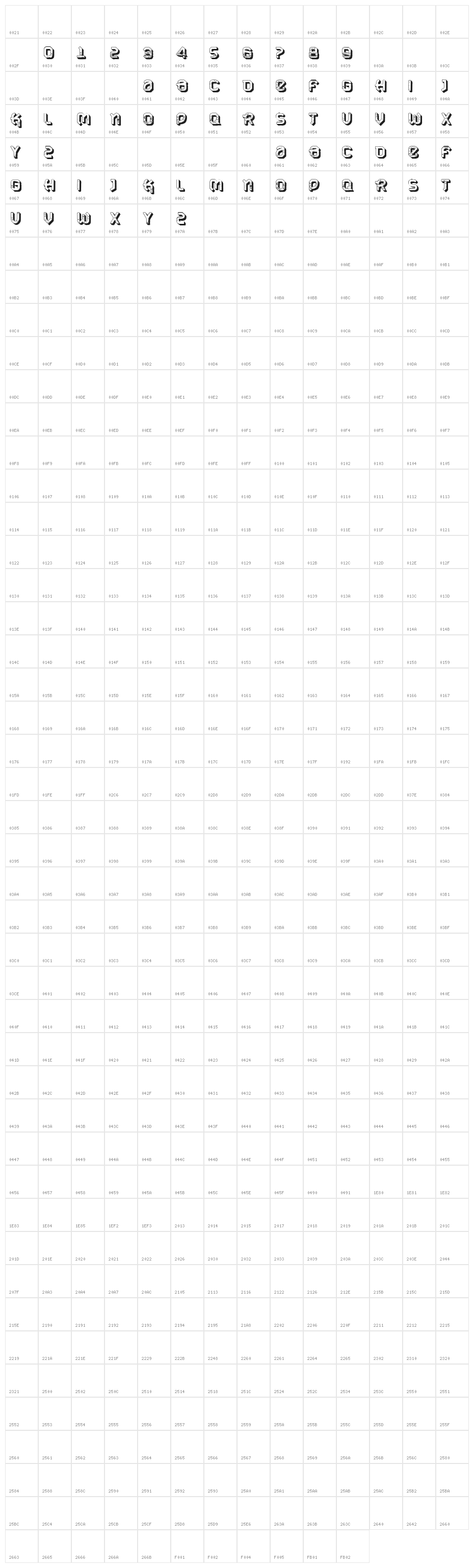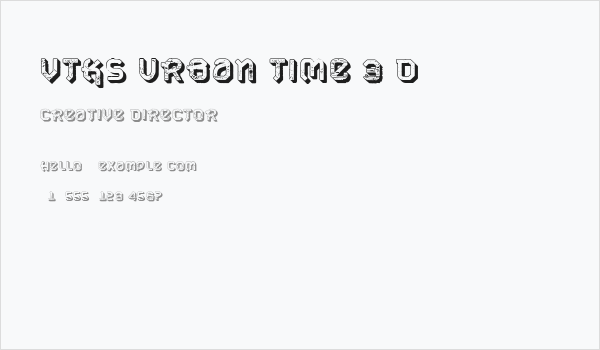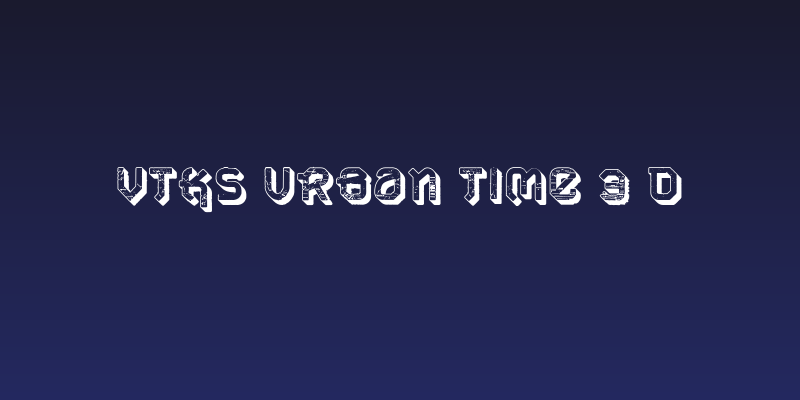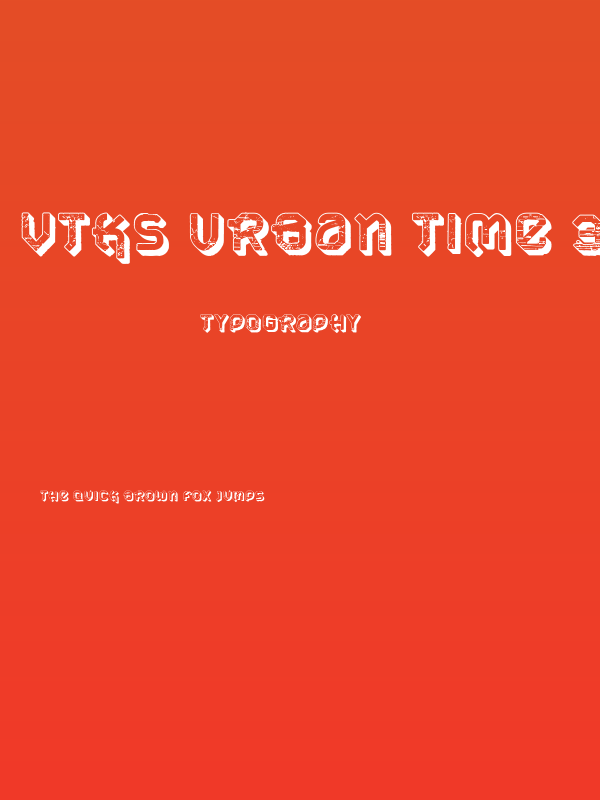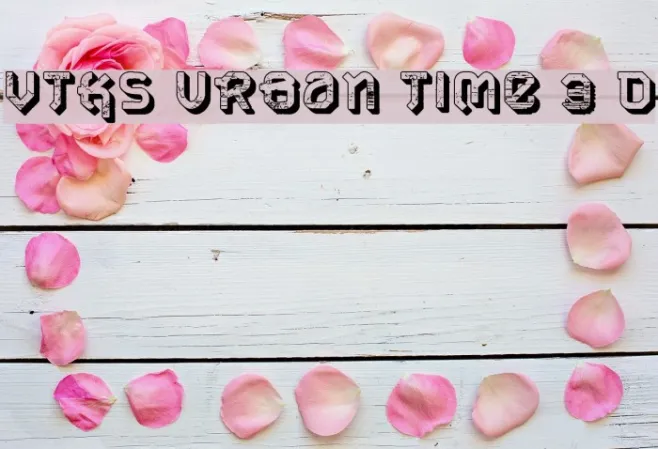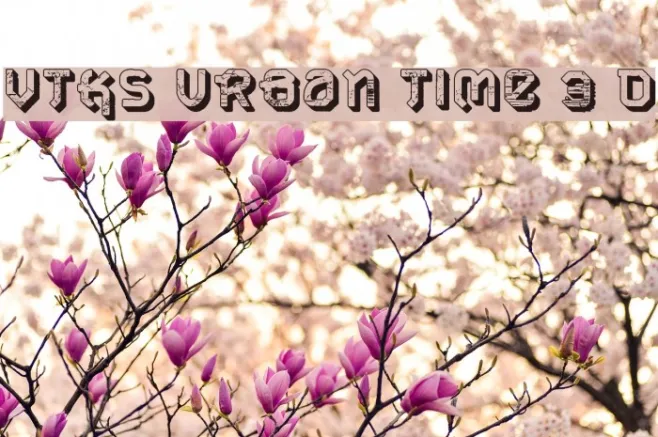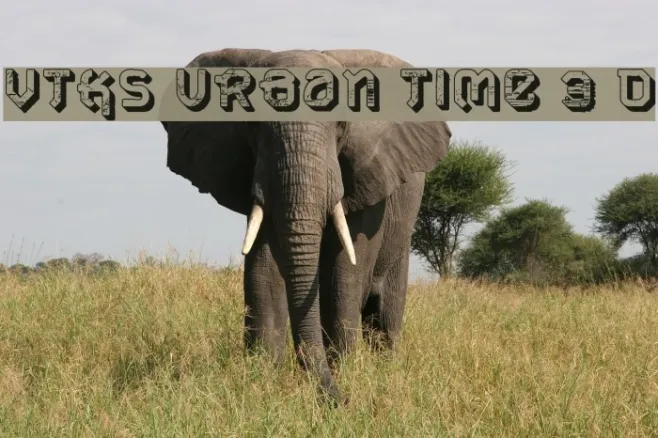
VTKS URBAN TIME 3 d Font
| Style général | Urban, Grunge, Bold |
| Projets proposés | Ideal for street art posters, music album covers, urban-themed branding, and edgy graphic designs. |